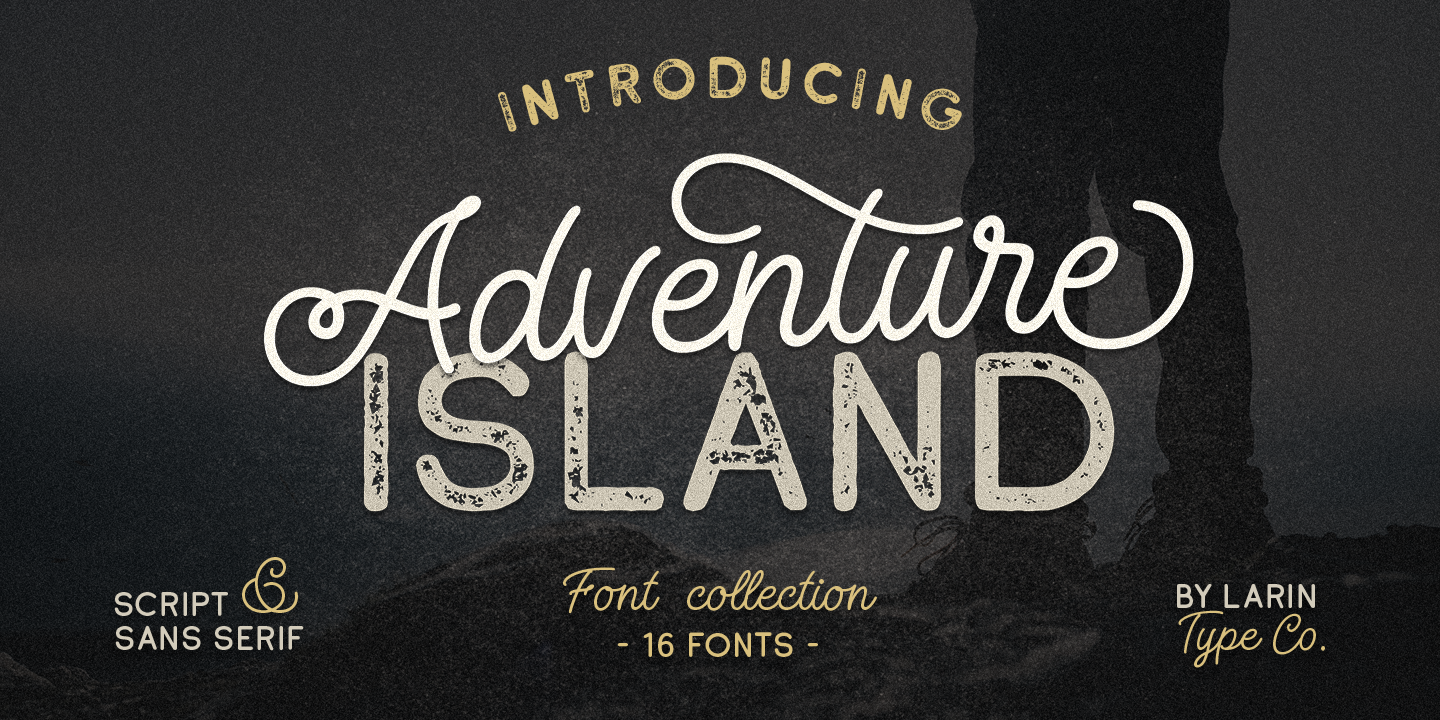
The Adventure Island Font is a captivating and often playful typeface, designed to evoke a sense of exploration, whimsy, or a tropical paradise. Its unique character, which might include hand-drawn elements, slightly irregular baselines, or a brush-stroke feel, makes it an excellent choice for travel agency branding, children's book titles about exploration, theme park signage, beach resort marketing, summer event posters, and vibrant social media graphics. Whether you’re crafting a cheerful logo for a family getaway or an inviting advertisement for a tropical destination, this font will infuse your project with a sense of excitement and escapism.
What makes the Adventure Island Font so exciting is its ability to instantly transport the viewer to a world of fun and discovery. It's perfect for designers who want to convey a sense of lightheartedness, playfulness, or an imaginative narrative. This font stands out by offering a unique visual voice that is both engaging and memorable, making any text it graces feel like an integral part of an exciting journey. The artistic touches often found within its letterforms contribute to its charm, ensuring your message is conveyed with a distinctive and captivating flair.
The Adventure Island Font typically offers a versatile range of features to support diverse design needs. While specific offerings may vary depending on the font package, you can generally expect to find a Regular weight, often complemented by a Bold version for added emphasis and versatility. Some versions of the Adventure Island Font Free Download might also include alternate characters, ligatures (connecting letter pairs), or even a small collection of ornamental elements designed to complement its unique personality, allowing for even greater customization and thematic depth. These features ensure that the Adventure Island Font can be adapted to almost any design requirement where an adventurous, fun, or whimsical statement is desired, maintaining its consistent enchanting charm throughout your project.